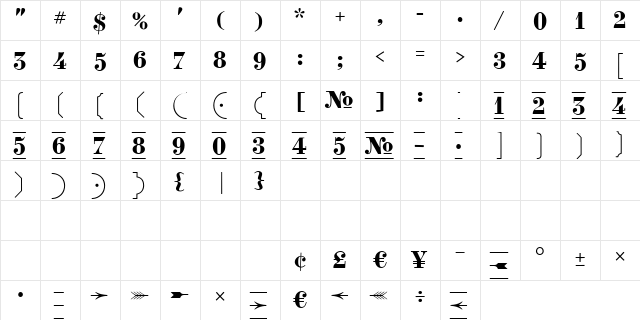
Numbers Strasse Regular
Design Context for Numbers Strasse Typeface
Numbers Strasse takes a measured approach to typography — its balanced proportions and neutral character make it a reliable workhorse for both digital and print work.